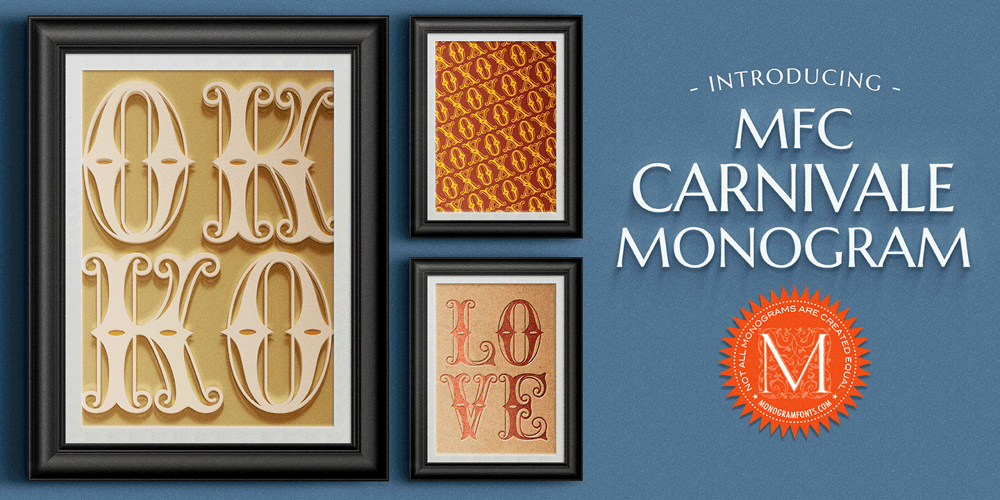
MFC Carnivale Monogram Font Family was designed by Jim Lyles, Brian J. Bonislawsky and published by Monogram Fonts Co.. MFC Carnivale Monogram contains 4 styles and family package options. The inspiration source for Carnivale Monogram is an elegantly sexy antique of typographic history. Known as Romantiques No. 3 or Ornate No. 2, this fantastic typefaces has been digitally revived and expanded for monogram designs. While this typestyle was never originally intended for monograms, its ornate nature lends itself so wonderfully to the craft. Download and view the MFC Carnivale Monogram Guidebook if you would like to learn a little more.